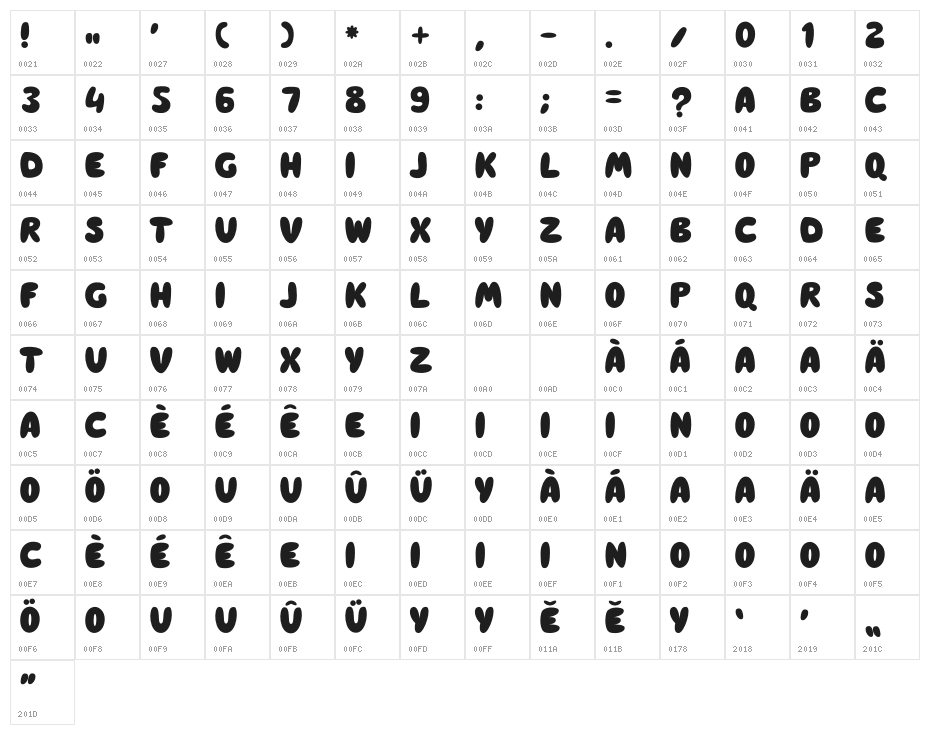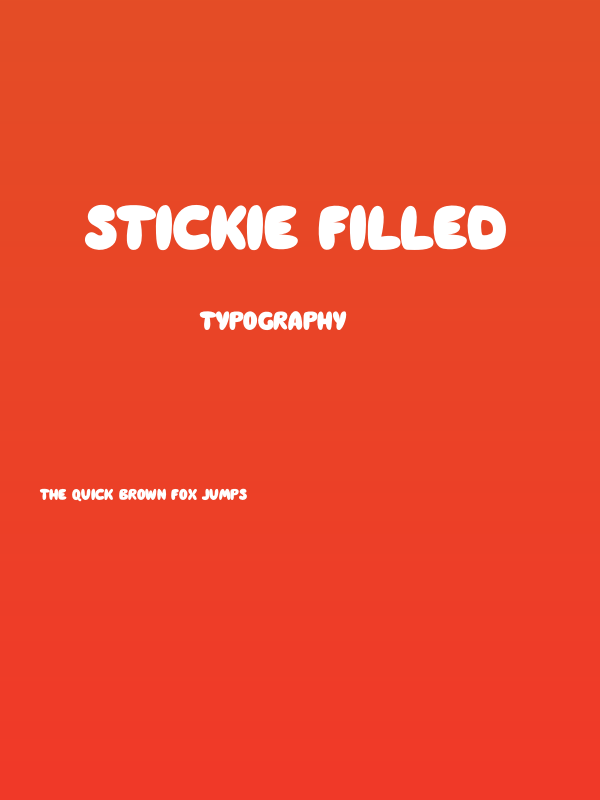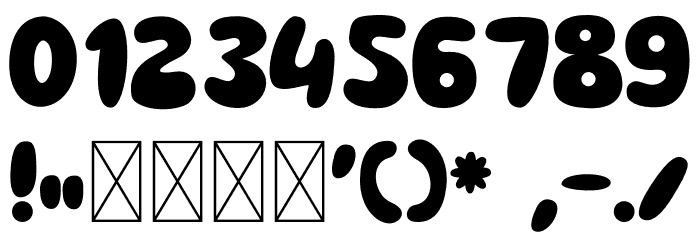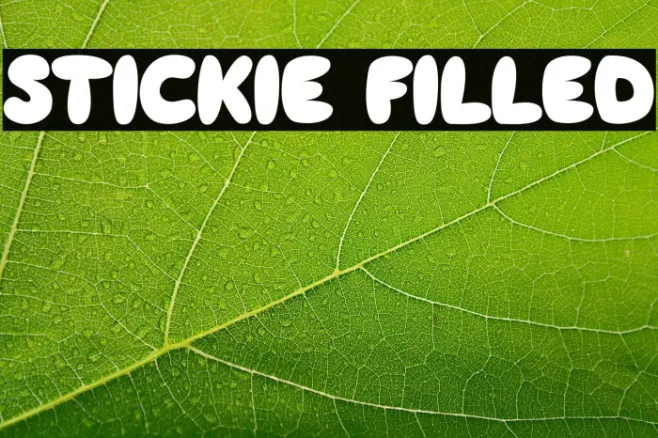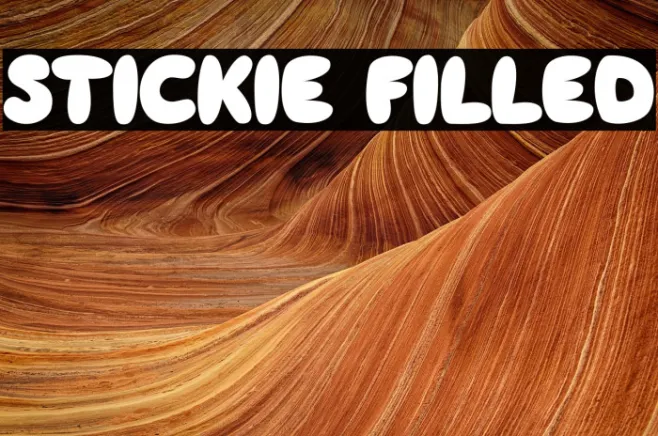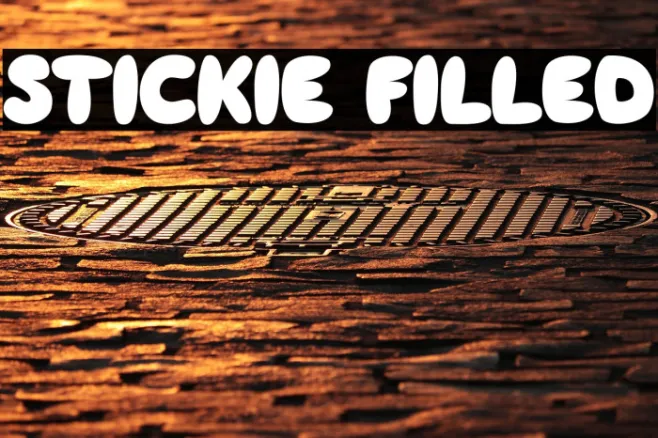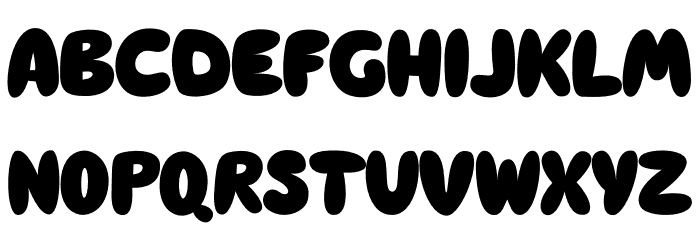
Stickie Filled Font
Stickie Filled Description
This font features a bold, playful design with rounded, bubble-like characters. The letters are thick and have a soft, friendly appearance, making them ideal for projects that require a fun and approachable aesthetic. The uniform thickness of the strokes gives it a cohesive look, while the rounded edges add a sense of warmth and approachability. The font maintains a consistent width across all characters, contributing to its balanced and harmonious appearance. It is particularly well-suited for creative projects, children's materials, or any design that aims to convey a sense of joy and whimsy.
| Overall Style | Playful, Fun |
| Proposed Projects | Ideal for children's books, playful branding, posters, and greeting cards. |